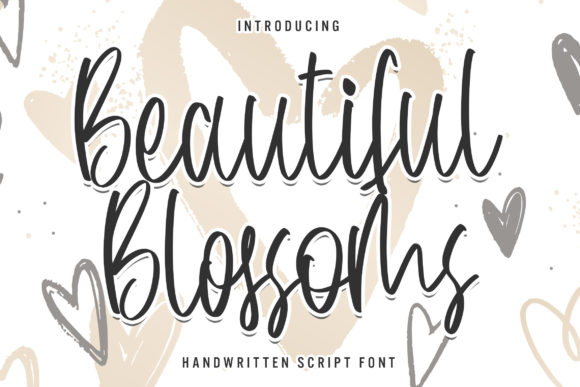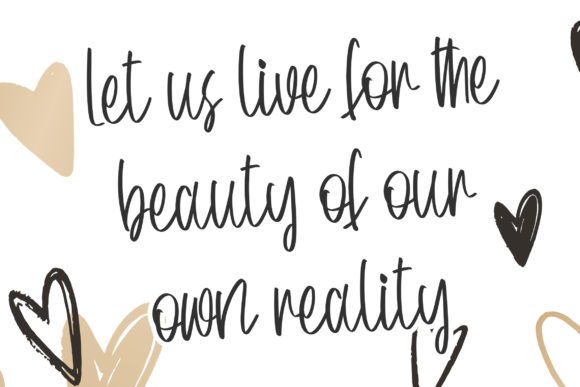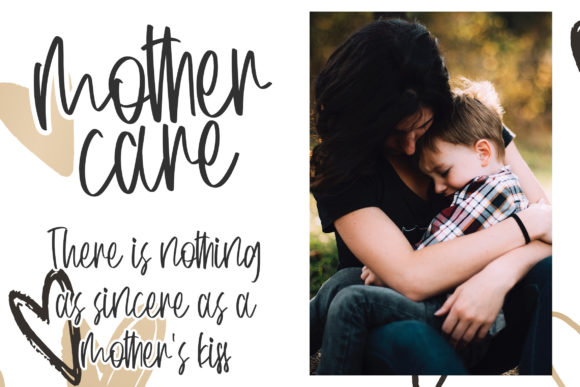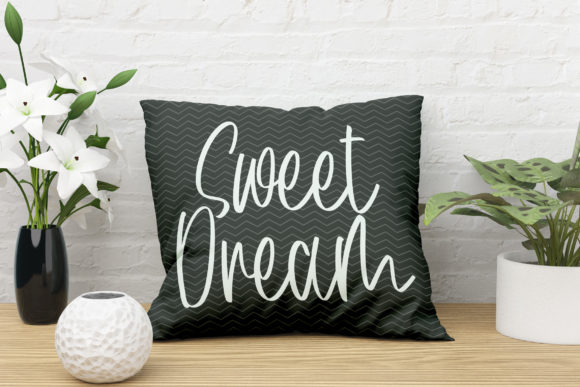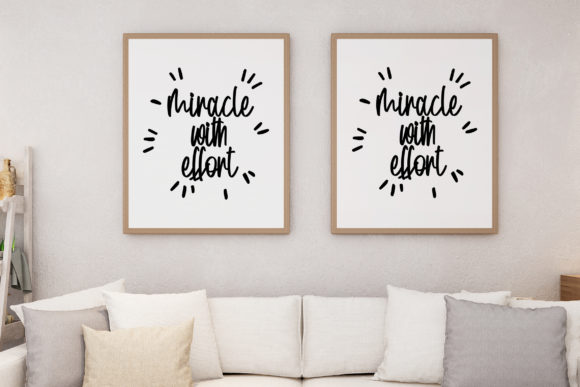
About Beautiful Blossoms Font
Beautiful Blossoms is a casual, flowing and cursive handwritten font. It looks stunning on invitations, thank you cards, quotes, greeting cards, logos, business cards and every other design which needs a customized touch.